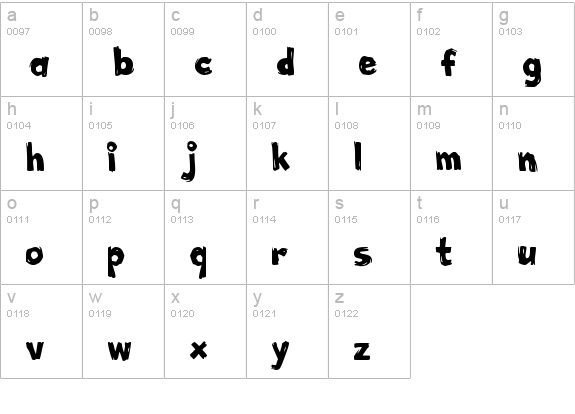
Little Piggy BTN is a charming and playful font that exudes a sense of whimsy and innocence. Its rounded edges and friendly curves give it a warm and welcoming feel, making it perfect for a variety of designs ranging from children's books to greeting cards. This delightful font is sure to bring a smile to anyone's face with its cheerful appearance. And the best part? Little Piggy BTN is available for free download at FontsMarket.com. So go ahead and add a touch of sweetness and fun to your projects with this adorable font that will surely capture hearts and imaginations.